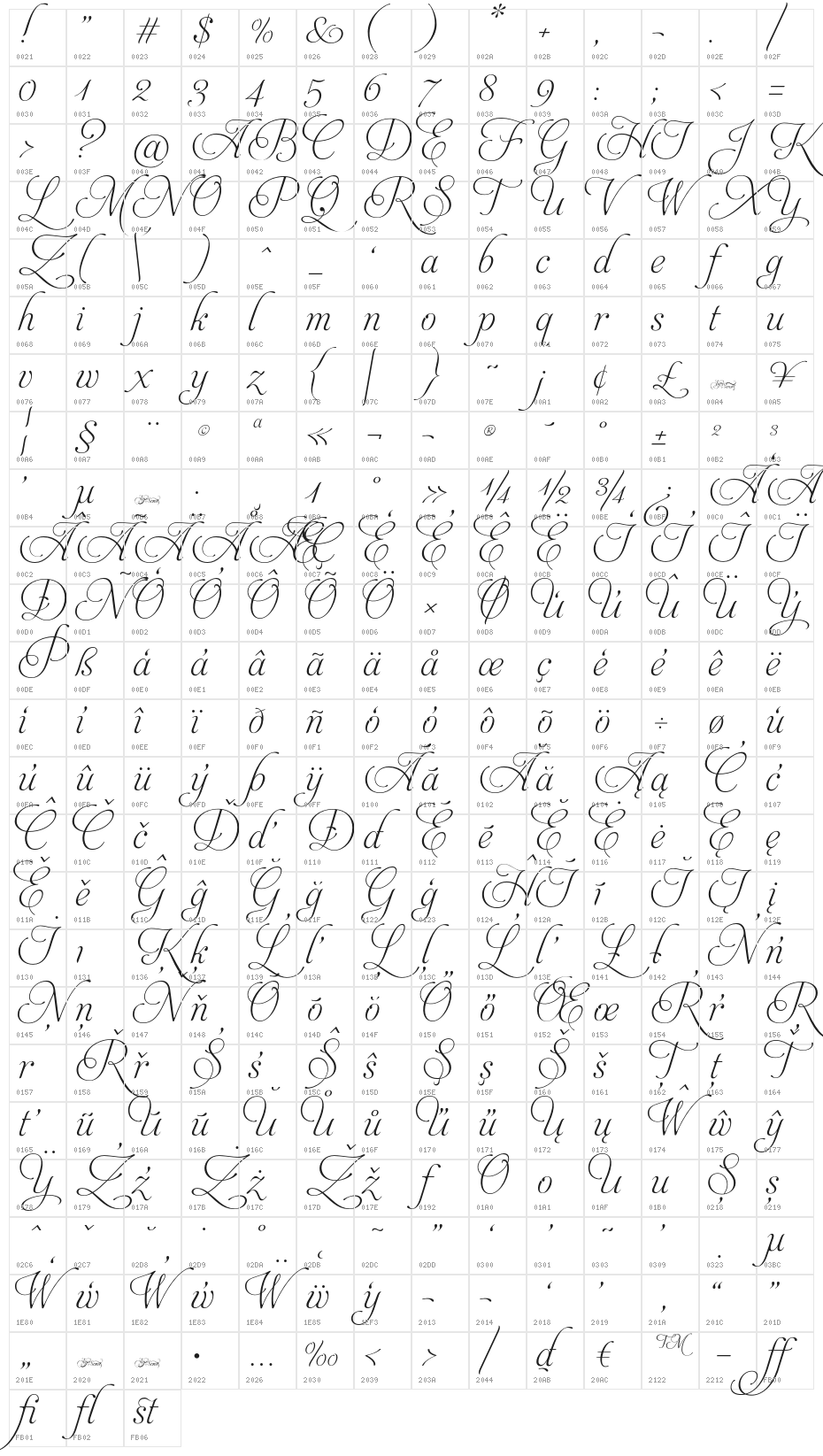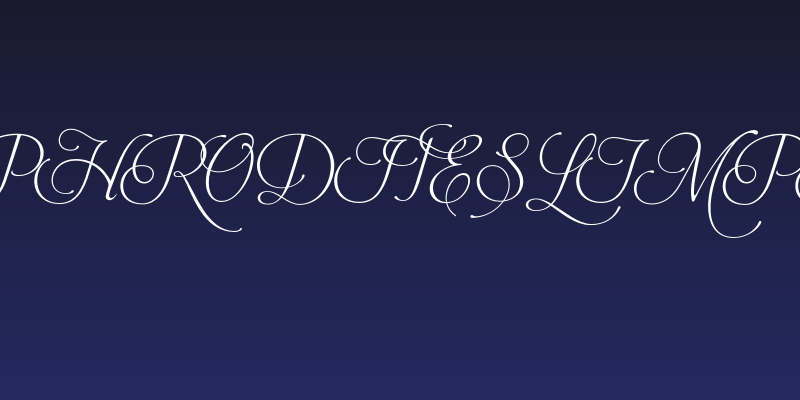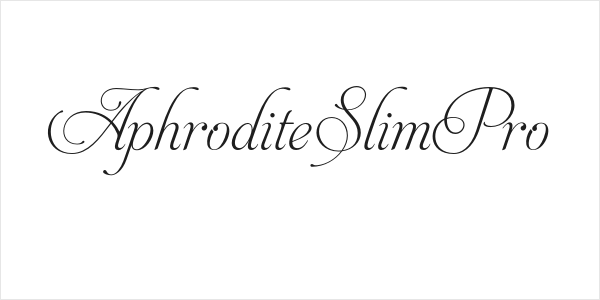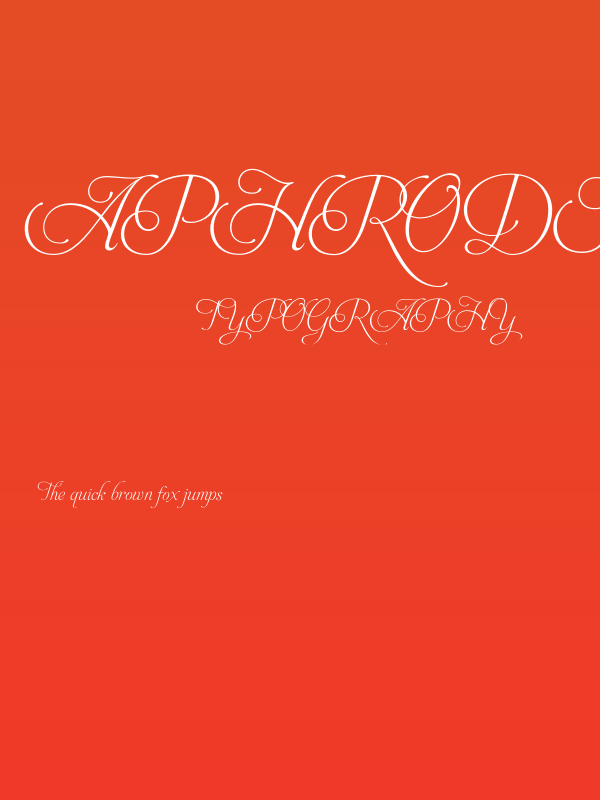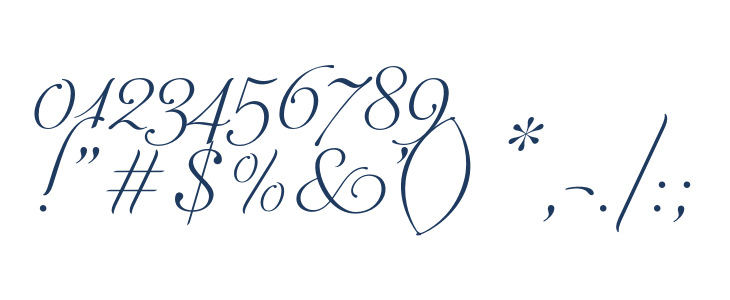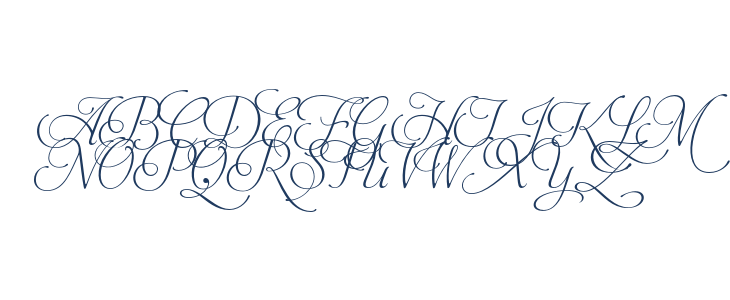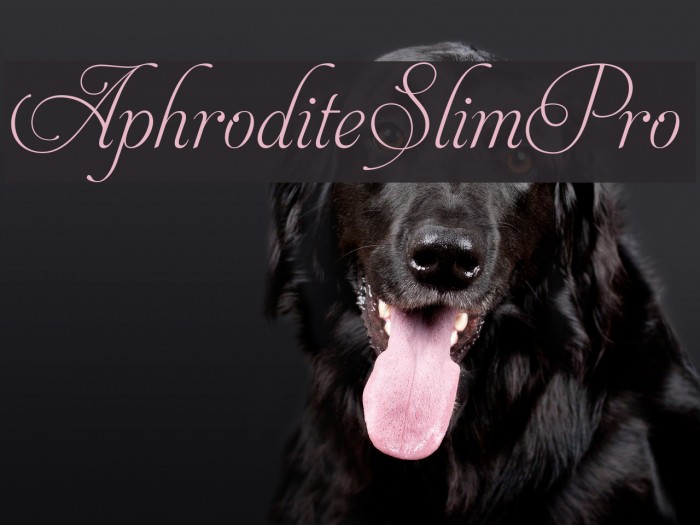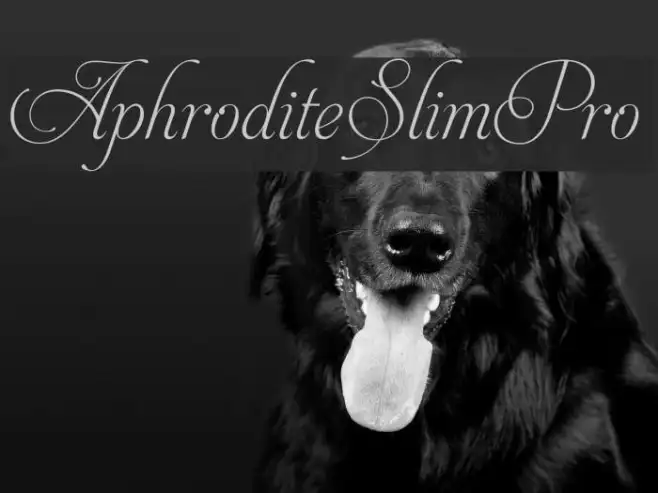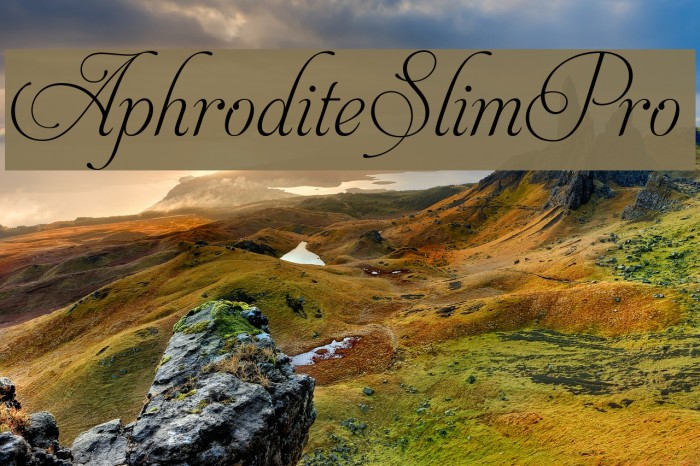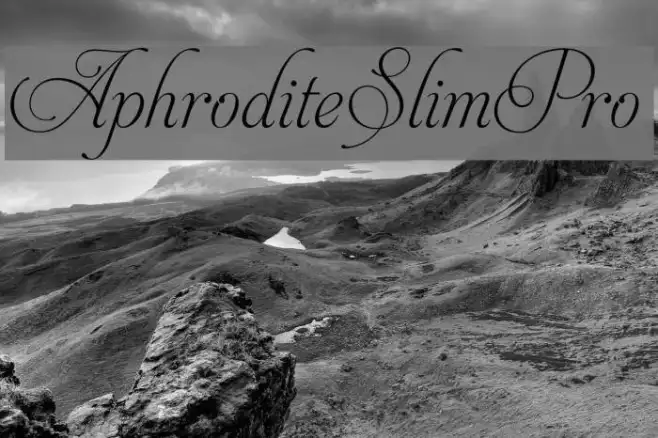
AphroditeSlimPro Font
AphroditeSlimPro Description
This elegant script font features flowing, interconnected letters with a refined and sophisticated appearance. The uppercase letters are particularly ornate, with intricate swashes and flourishes that add a touch of luxury and grace. The lowercase letters maintain a consistent style, offering a smooth and fluid transition between characters. The numerals are designed with the same attention to detail, ensuring they complement the overall aesthetic. Special characters like punctuation marks and symbols are also crafted with care, enhancing the font's versatility. This font is ideal for projects that require a touch of elegance and sophistication, such as wedding invitations, upscale branding, or high-end product packaging.
| Proposed Projects | Wedding invitations, luxury branding, high-end product packaging. |